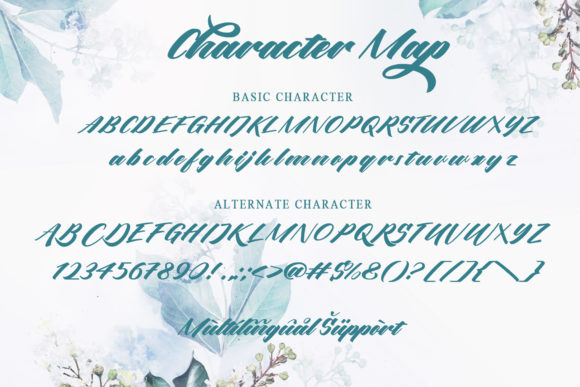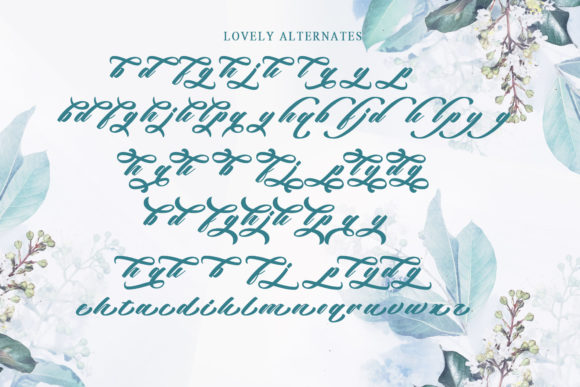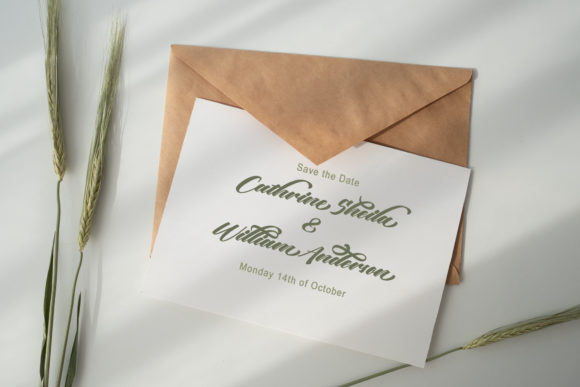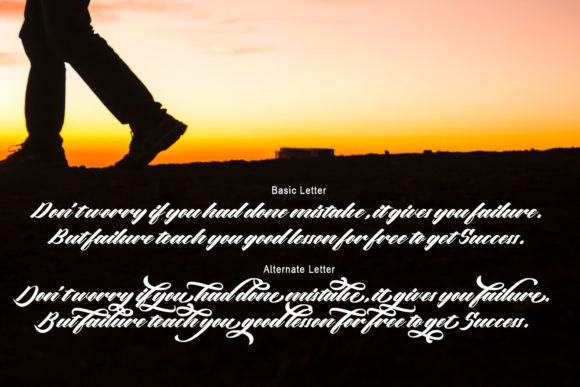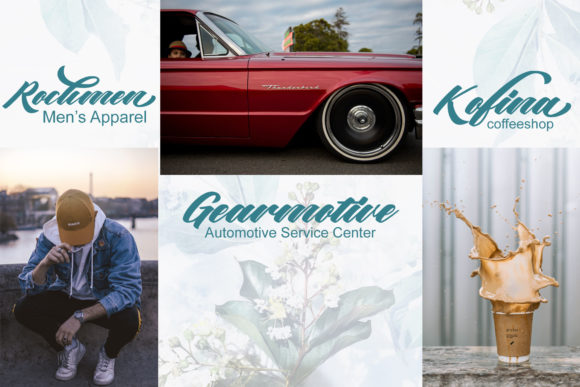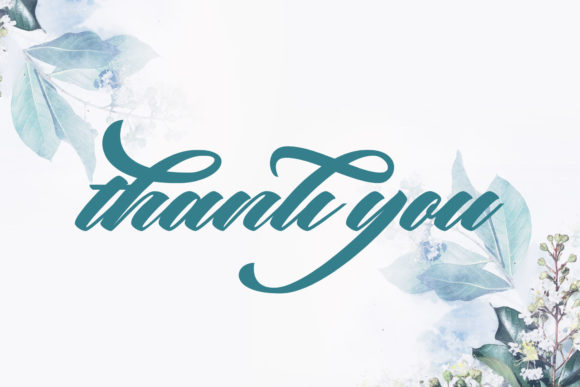
The De Hafla Font: A Beautiful Bold Script for Creative Projects
I’ll never forget the time I was working on a branding project for a luxury wedding planner. I had spent hours agonizing over the perfect color palette and logo design, but when it came to choosing a font, I hit a roadblock. I wanted something that exuded elegance, sophistication, and a touch of whimsy. That’s when I stumbled upon the De Hafla font, a stunning bold script typeface that has since become a staple in my design toolkit.
An Honest Review of De Hafla
- 💫 Beautiful, flowing characters that add a touch of luxury to any project
- 🎨 Versatile and adaptable, suitable for a wide range of creative applications
- 🔍 Extensive OpenType features, including glyphs and stylistic alternates
While De Hafla is an exceptional font, there are a few minor limitations to be aware of:
- 🤔 Some users may find the font a tad too bold for certain applications, such as body text or smaller headings
- ⚠️ Limited availability of condensed or italic variations, which may limit its use in certain design contexts
A Practical Guide to Using De Hafla
The Story Behind De Hafla
De Hafla was designed by a talented typographer who drew inspiration from classic script fonts and modern calligraphy. The font’s creator wanted to craft a bold, elegant script that would add a touch of luxury to any design project. With its flowing characters and extensive OpenType features, De Hafla has become a popular choice among designers and creative hobbyists alike.
| Font Name | De Hafla Font |
| Author | Doehantz Studio |
| What is De Hafla? | De Hafla is a beautiful bold script typeface featuring flowing characters, perfect for a wide variety of creative projects. |
| Is De Hafla suitable for body text? | While De Hafla is highly legible, it may be too bold for body text. It’s best suited for headings, titles, and other display text. |
| What OpenType features does De Hafla have? | De Hafla features an extensive range of OpenType features, including glyphs, stylistic alternates, and more. |